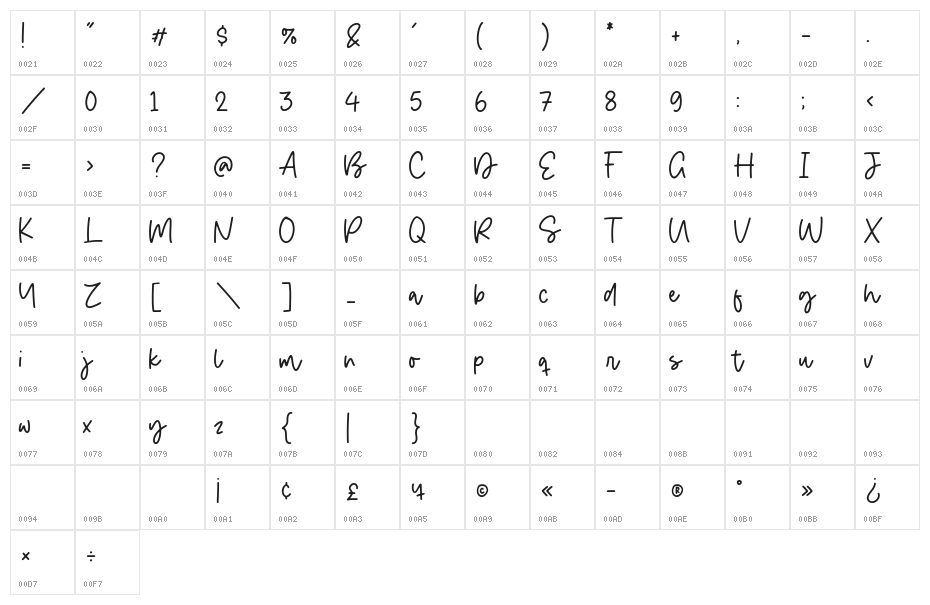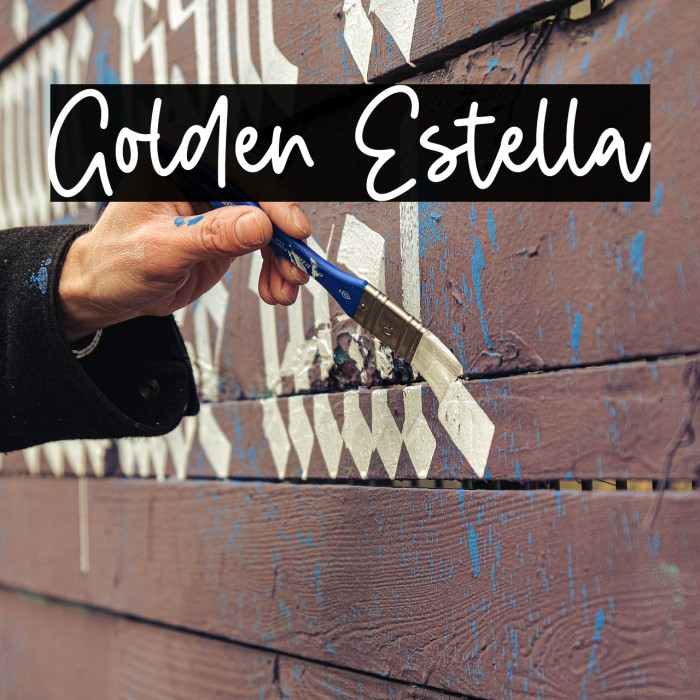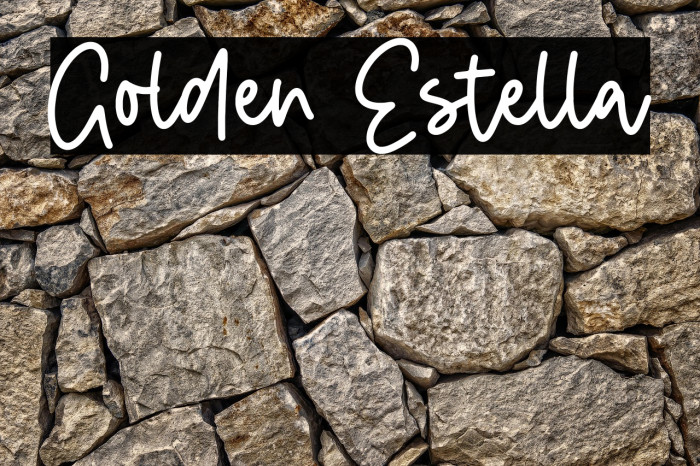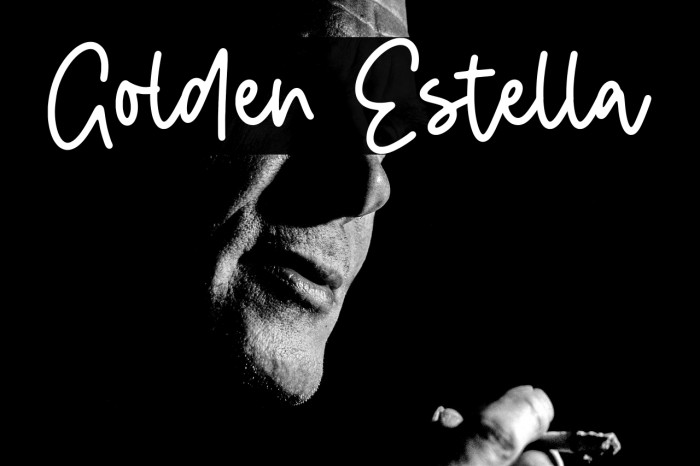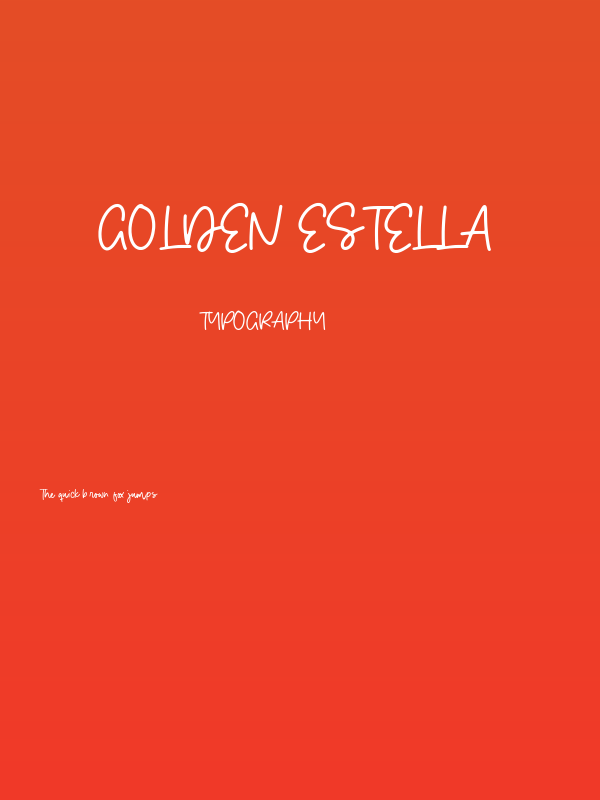
Golden Estella Font
Golden Estella Description
A playful, casual handwritten font with smooth, rounded strokes and a natural, flowing appearance. The characters are slightly irregular, mimicking authentic handwriting, and the overall look is friendly and approachable.
| Overall Style | Casual, Playful, Modern |
| Use Case | Logos, Headlines, Social media, Invitations |
| Proposed Projects | Greeting cards, personal branding, social media graphics, invitations, informal posters. |